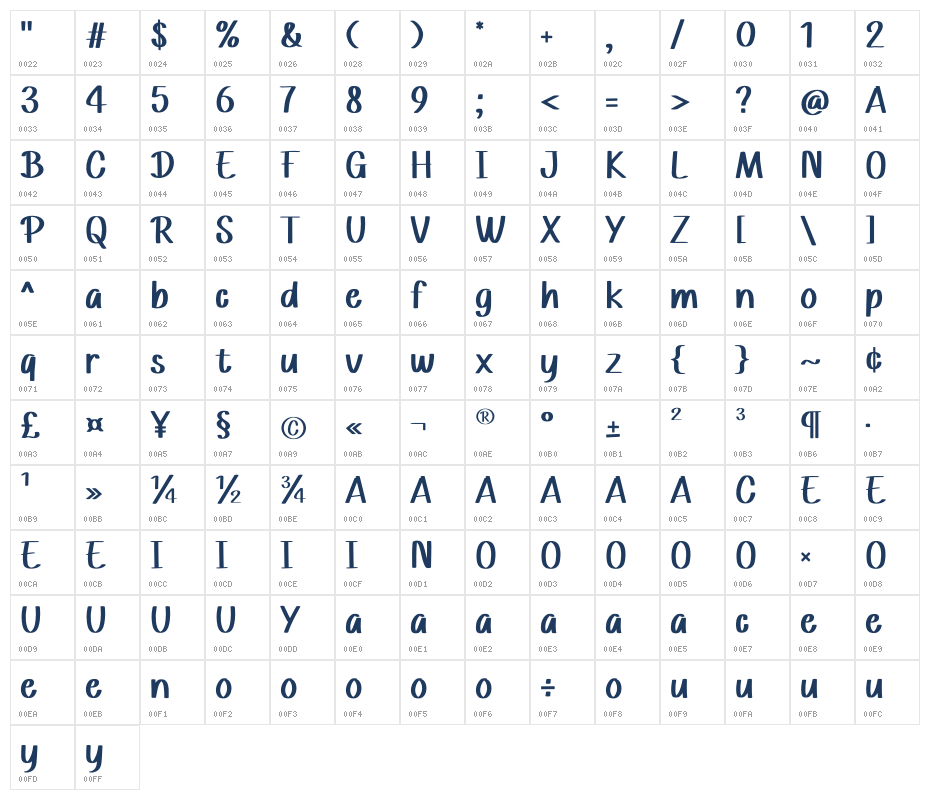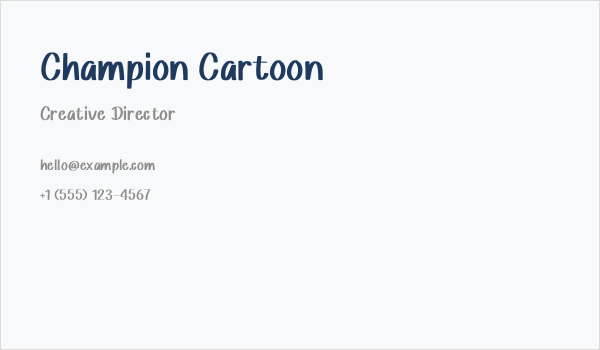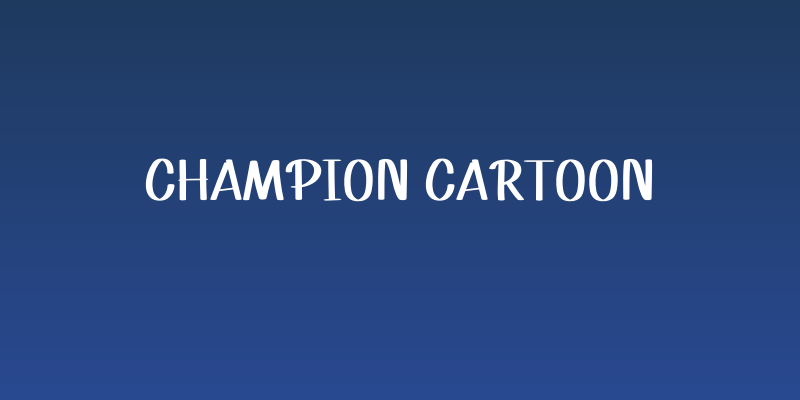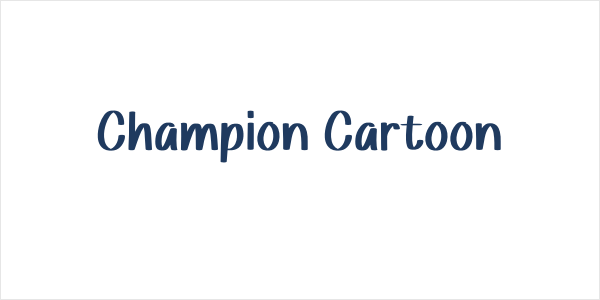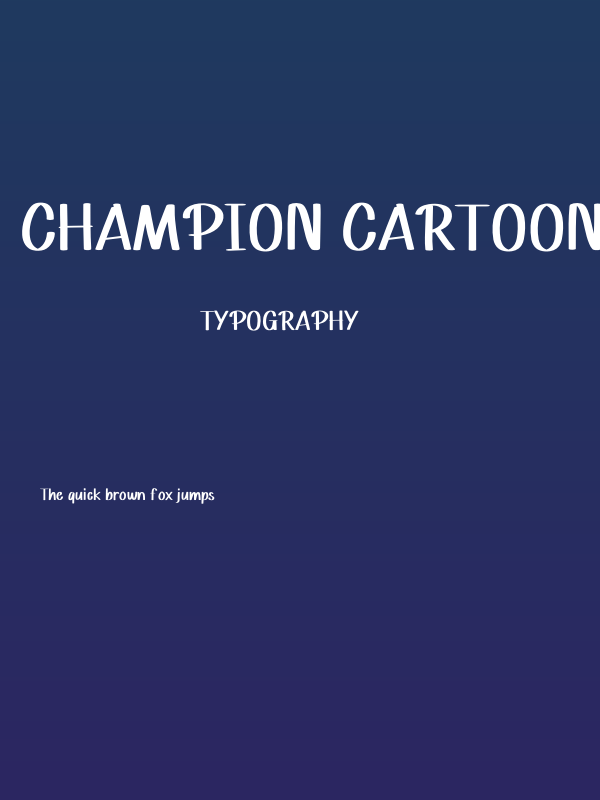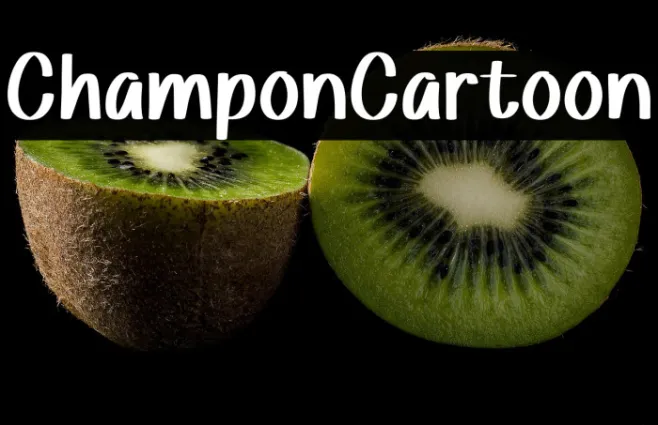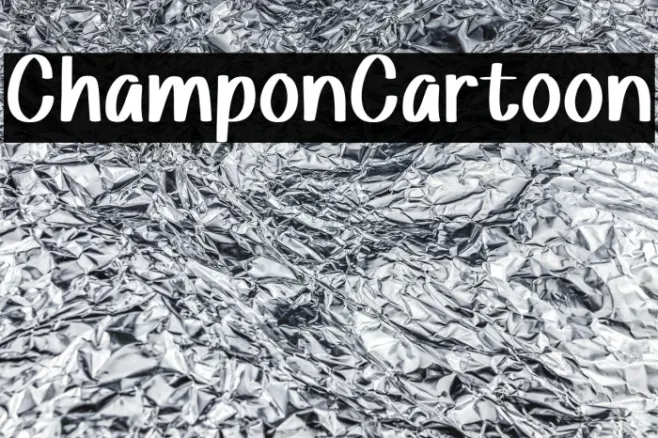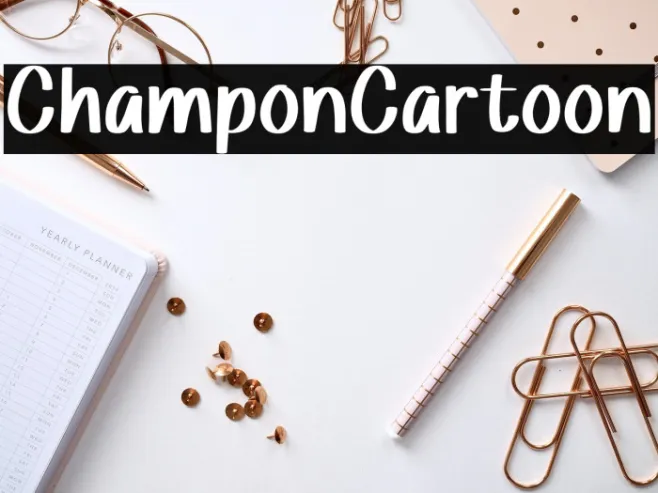
Champion Cartoon Font
Champion Cartoon Description
A playful, handwritten style font with a casual and friendly appearance, featuring slightly irregular strokes and a dynamic flow.
| Overall Style | Casual, Friendly, Handwritten |
| Use Case | Headlines, Body text, Logos, Invitations, Greeting cards |